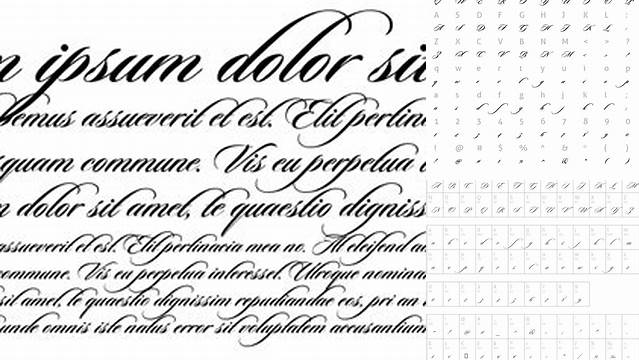
What is Sloop Script Bold Three Font?
Sloop Script Bold Three Font is a beautifully crafted typeface that falls into the script font category. Script fonts are designed to mimic handwriting, and Sloop Script Bold Three takes this concept and adds a touch of boldness and flair. This makes it incredibly versatile for a wide range of design projects, from invitations and logos to social media graphics and website headers. What sets Sloop Script Bold Three apart from other script fonts is its unique balance of readability and style. It's elegant without being overly ornate, and bold enough to make a statement without being overwhelming. This makes it an excellent choice for projects where you want to convey a sense of sophistication and personality.
When you're working with script fonts, it's important to consider the context in which they'll be used. Sloop Script Bold Three, with its bold weight, works particularly well in situations where you need to grab attention. Think about using it for headlines, titles, or branding elements. However, because it is a script font, it's generally not recommended for large blocks of body text. The cursive nature of script fonts can make them difficult to read in large quantities, so it's best to reserve them for shorter, more impactful uses. Another key consideration is the overall tone and message of your project. Sloop Script Bold Three has a friendly and approachable feel, so it's a great fit for projects that aim to be welcoming and personal. On the technical side, Sloop Script Bold Three is often available in various formats, including OTF (OpenType Font) and TTF (TrueType Font). OTF is generally preferred due to its advanced features, such as ligatures and alternate characters, which can further enhance the font's aesthetic appeal. These features allow you to customize the font to suit your specific needs, adding unique touches that can make your designs stand out. In summary, Sloop Script Bold Three Font is a fantastic option for anyone looking to add a touch of elegance and personality to their design projects. Its bold weight, readability, and versatile style make it a valuable asset in any designer's toolkit. Just remember to use it judiciously, and always consider the context and message of your project.
Key Features of Sloop Script Bold Three
When diving into the world of fonts, understanding the specific features that make each one unique is crucial. Sloop Script Bold Three boasts several key attributes that make it a standout choice for designers. First and foremost, its bold weight immediately commands attention. This isn't your subtle, whisper-thin script; it's a font that wants to be noticed. The boldness adds a sense of confidence and presence, making it ideal for headlines, logos, and other prominent design elements.
Beyond its weight, the overall design of Sloop Script Bold Three is characterized by its smooth, flowing lines and elegant curves. The letterforms are carefully crafted to create a sense of rhythm and harmony, making the font visually appealing and easy on the eyes. This is particularly important for script fonts, where readability can sometimes be a challenge. The designers of Sloop Script Bold Three have struck a balance between style and legibility, ensuring that the font is both beautiful and functional. Another notable feature is the presence of ligatures and alternate characters. Ligatures are special combinations of two or more letters that are designed to flow seamlessly together. These can add a touch of sophistication and polish to your designs, making them look more refined and professional. Alternate characters, on the other hand, offer variations on individual letters, allowing you to customize the font to suit your specific needs. For example, you might choose to use a more decorative version of the letter 'S' in a logo or headline. These features give you greater control over the final look and feel of your text. Furthermore, Sloop Script Bold Three often includes a full set of uppercase and lowercase letters, as well as numbers, punctuation marks, and symbols. This ensures that you have everything you need to create complete and professional-looking designs. The font is also typically available in various formats, such as OTF and TTF, making it compatible with a wide range of design software and operating systems. In terms of versatility, Sloop Script Bold Three is well-suited for a variety of applications. Its bold weight and elegant design make it a great choice for branding, advertising, and editorial design. It can also be used for invitations, greeting cards, and other personal projects. However, as with any script font, it's important to use it judiciously. Avoid using it for large blocks of body text, as this can make the text difficult to read. Instead, focus on using it for headlines, titles, and other short, impactful phrases. By understanding and utilizing the key features of Sloop Script Bold Three, you can create designs that are both visually stunning and highly effective.
Tips for Using Sloop Script Bold Three Effectively
Alright, you've got your hands on Sloop Script Bold Three – awesome! But now comes the real challenge: using it effectively to create stunning designs. Don't worry, I'm here to give you some pro tips that will help you make the most of this beautiful font. First and foremost, consider the context. Sloop Script Bold Three is an elegant and bold font, so it's best suited for projects that require a touch of sophistication and personality. Think about using it for wedding invitations, logos for creative businesses, or eye-catching headlines on your website. However, it's not the best choice for everything. Avoid using it for large blocks of body text, as the cursive nature of script fonts can make them difficult to read in large quantities. Instead, stick to using it for shorter, more impactful phrases. Another important tip is to pay attention to the font size and spacing. Sloop Script Bold Three is a bold font, so it can look overwhelming if it's too large. Experiment with different sizes to find the sweet spot where it's legible and visually appealing without being overpowering. Similarly, adjust the letter spacing and line height to create a balanced and harmonious look. Too little spacing can make the text look cramped and difficult to read, while too much spacing can make it look disjointed. When using Sloop Script Bold Three in combination with other fonts, choose fonts that complement its style. A classic sans-serif font like Helvetica or Arial can create a nice contrast with the script font, while a more elegant serif font like Times New Roman or Garamond can create a more cohesive look. Experiment with different font pairings to see what works best for your project. Just remember to avoid using too many different fonts in one design, as this can make it look cluttered and unprofessional. Color is another powerful tool that you can use to enhance the impact of Sloop Script Bold Three. A bold color like red or blue can make the font stand out even more, while a more subtle color like gray or beige can create a more understated and elegant look. Consider the overall color palette of your design and choose colors that complement the font and the message you're trying to convey. Finally, don't be afraid to experiment with different design techniques to add visual interest to your text. Try adding shadows, gradients, or textures to the font to create a more dynamic and eye-catching effect. You can also use the font as a design element in itself, creating patterns or illustrations with the letterforms. By following these tips and experimenting with different design techniques, you can unlock the full potential of Sloop Script Bold Three and create designs that are both beautiful and effective. Remember, the key is to use the font judiciously and to always consider the context and message of your project.